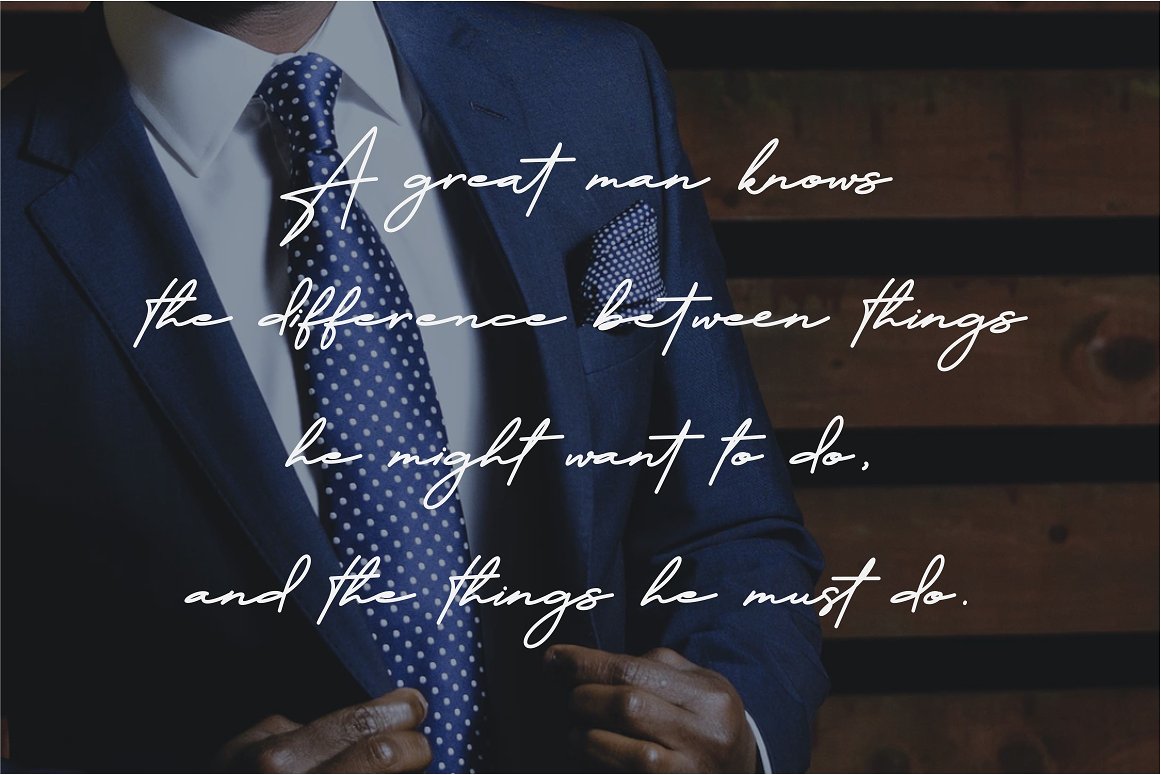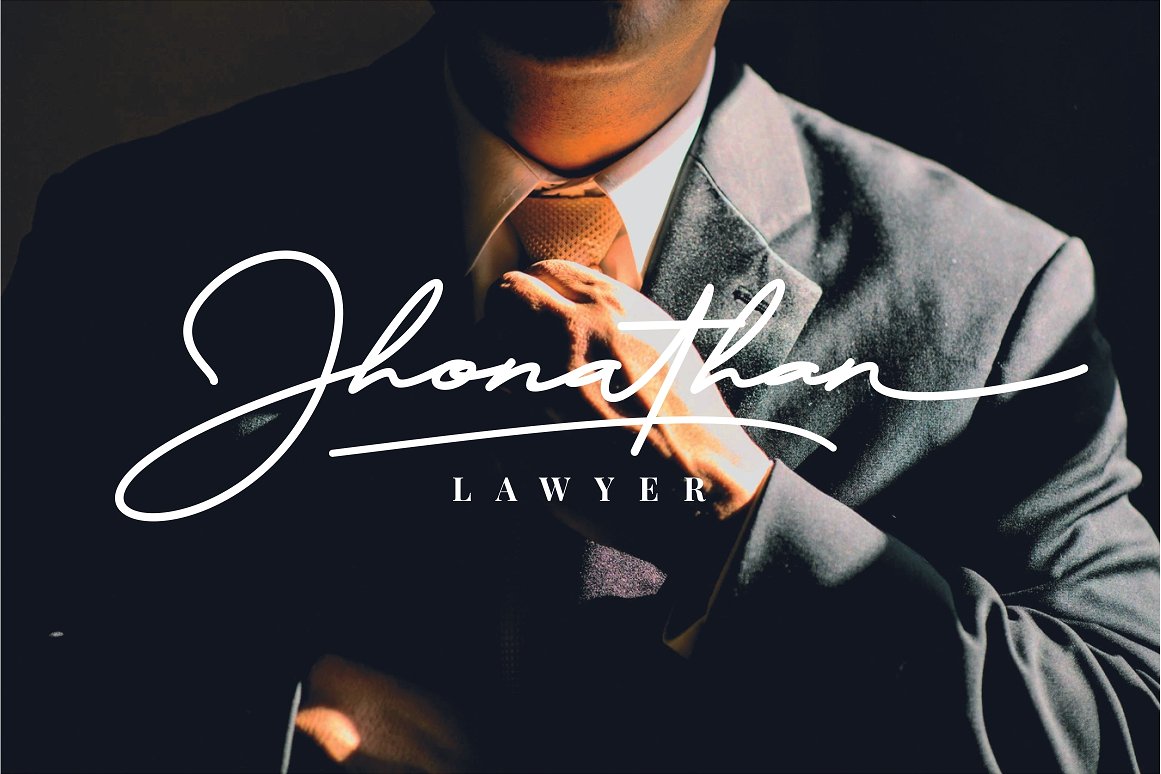
Candy Font
Candy – Modern Script Font, from Integritype Studio, is a premium Modern Script Font, suitable for any projects such as: logos, branding projects, homeware designs, product packaging, mugs, quotes, posters, shopping bags, t-shirts, book covers, name card, invitation cards, greeting cards, label, photography, watermark, special events, and all your other luxury projects that need a premium signature taste.